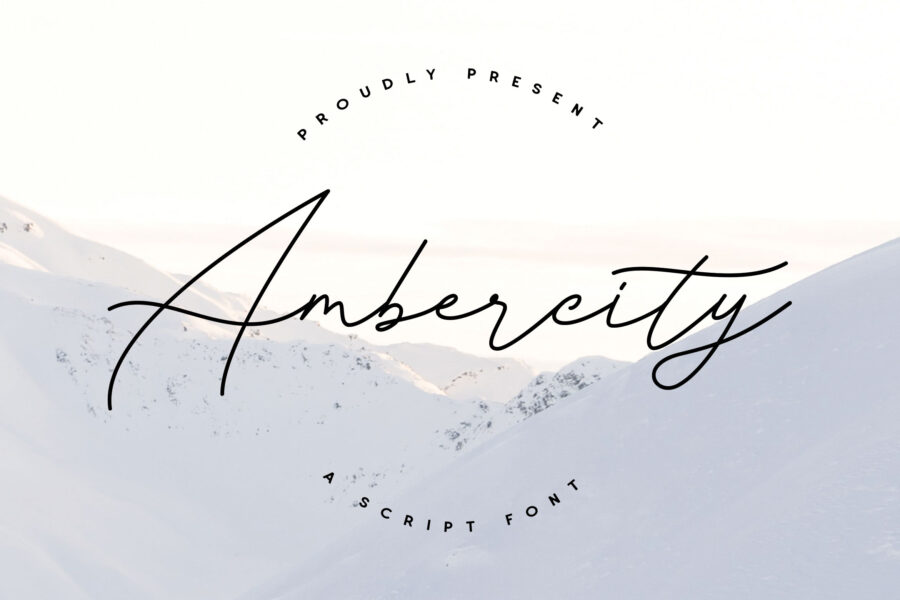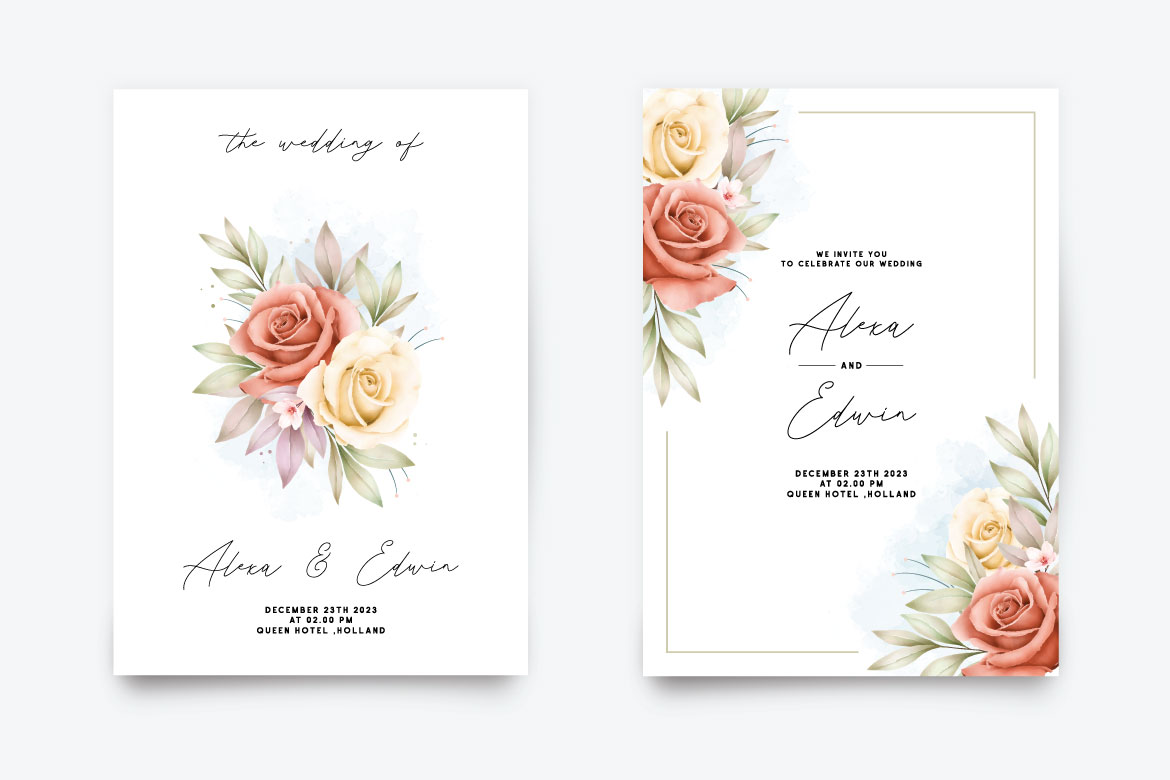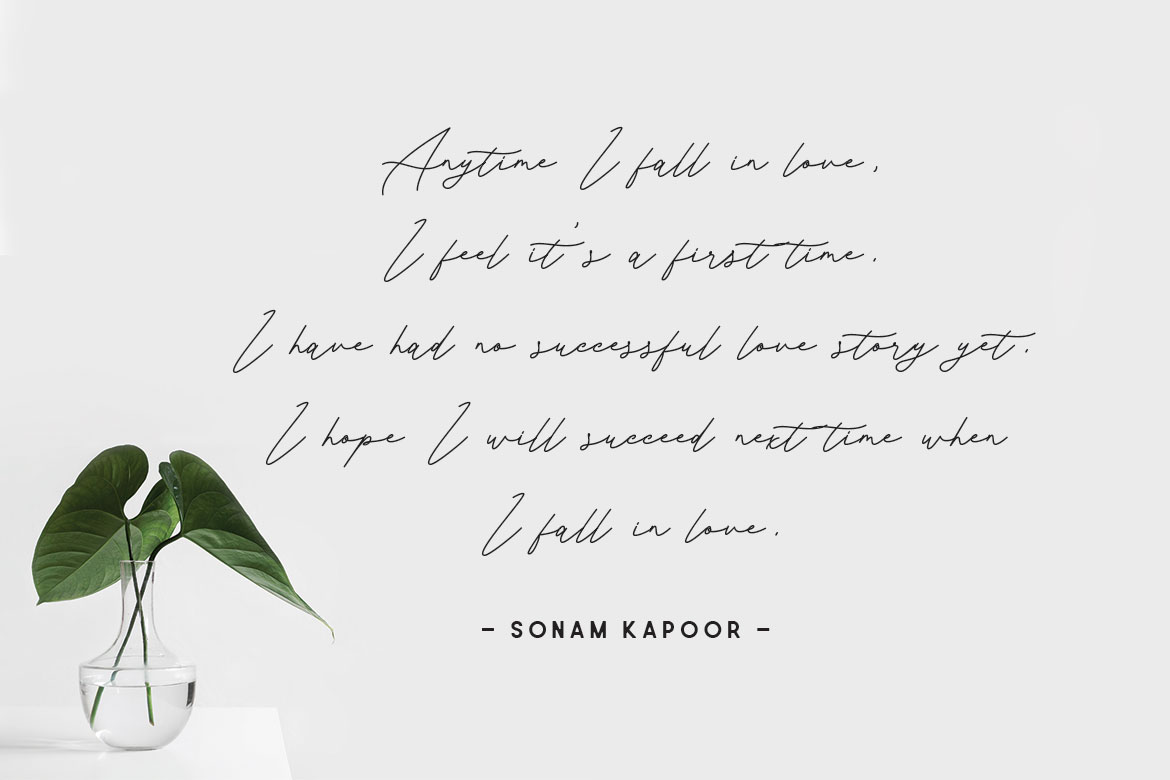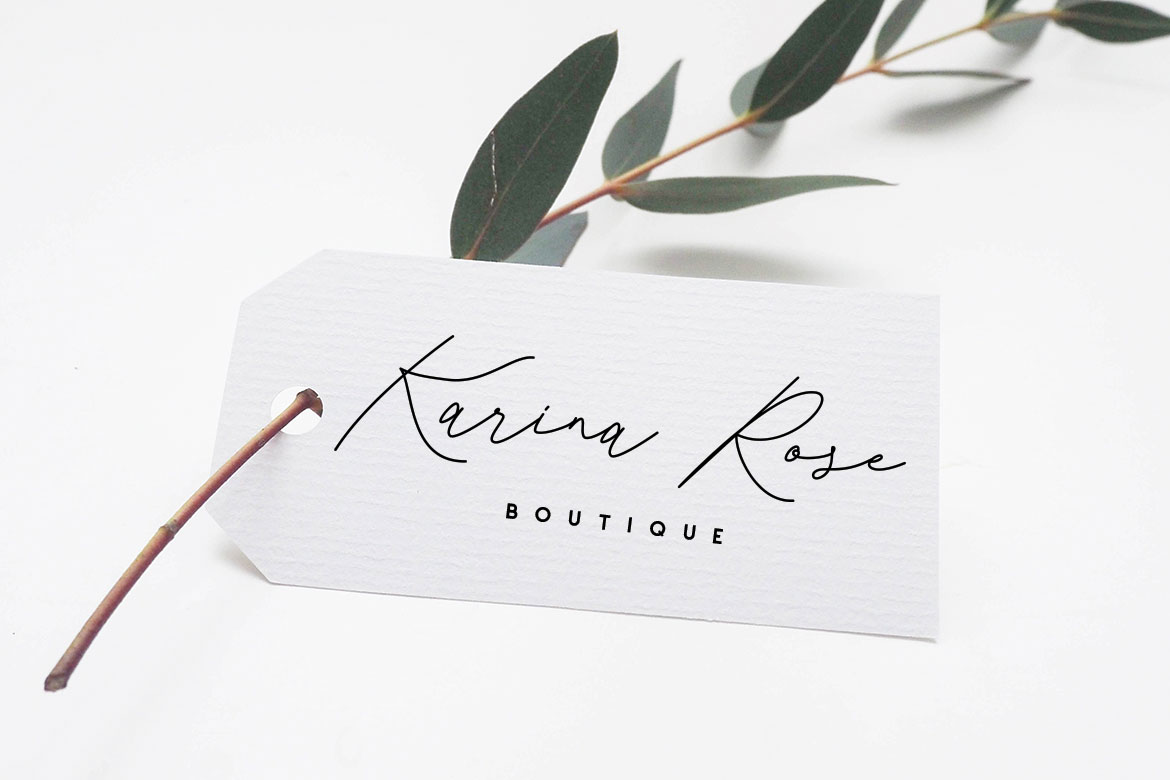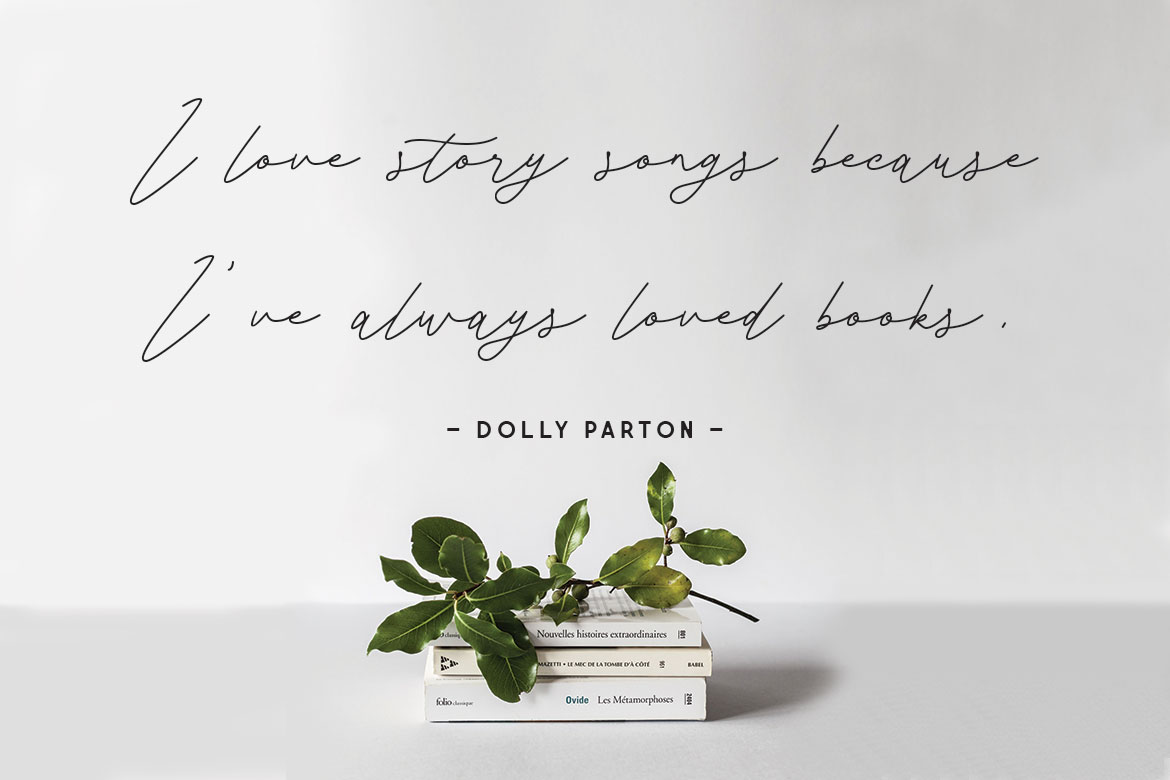
Ambercity is a stylish and delicate script font that captures the beauty of handwritten elegance. With its fine lines, graceful loops, and natural rhythm, Ambercity is perfect for high-end branding, wedding invitations, personal signatures, and minimalist designs. The font’s clean and airy aesthetic evokes a feeling of refinement and calm, making it an ideal choice for creatives who seek a sophisticated yet approachable tone.
Featuring a full set of uppercase and lowercase characters, numbers, and punctuation, Ambercity offers versatility across various design applications. Its thin strokes and fluid structure add a modern touch to everything from quote graphics to boutique logos, event stationery, and editorial layouts. Ambercity is a timeless script that elevates simplicity into something truly expressive.
Ambercity